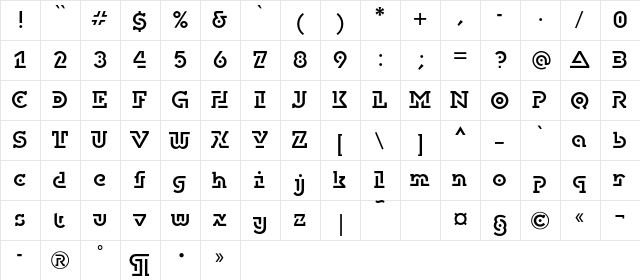
DublonBrusC Regular
Design Context for DublonBrusC Typeface
DublonBrusC is a composed and adaptable typeface that performs quietly and consistently across a wide range of design contexts.